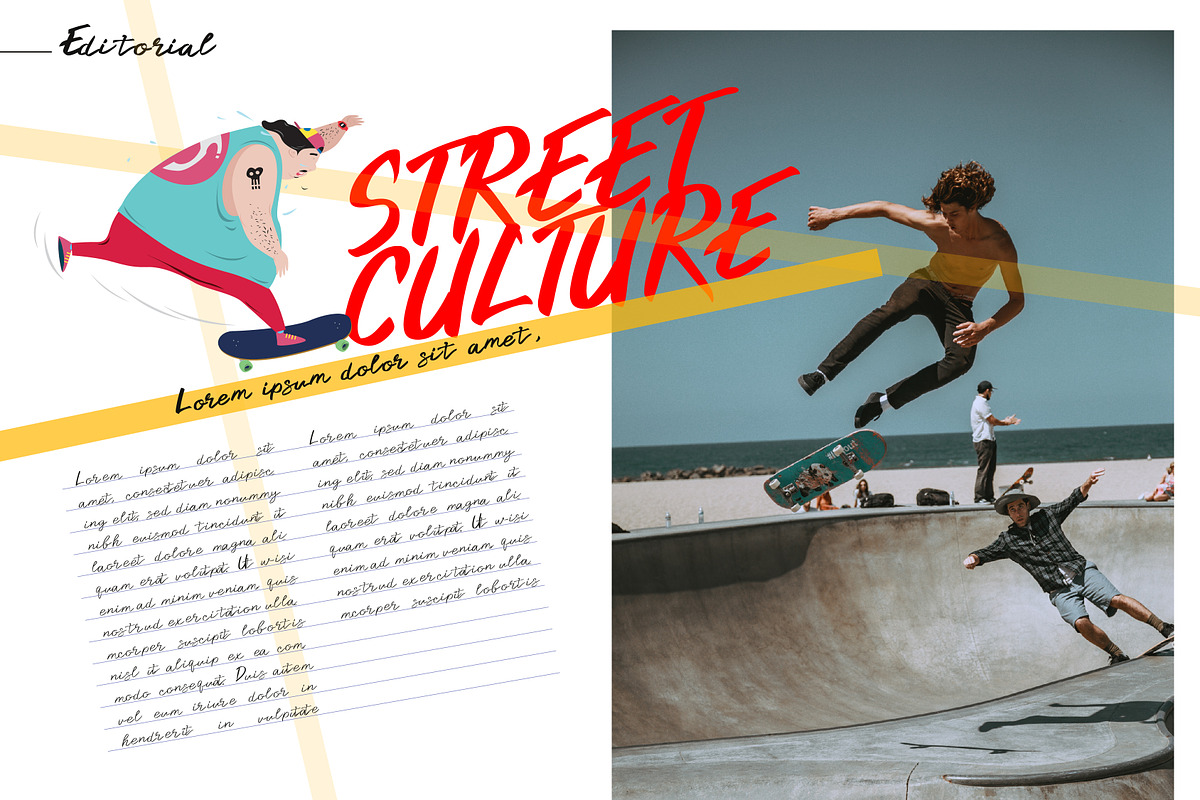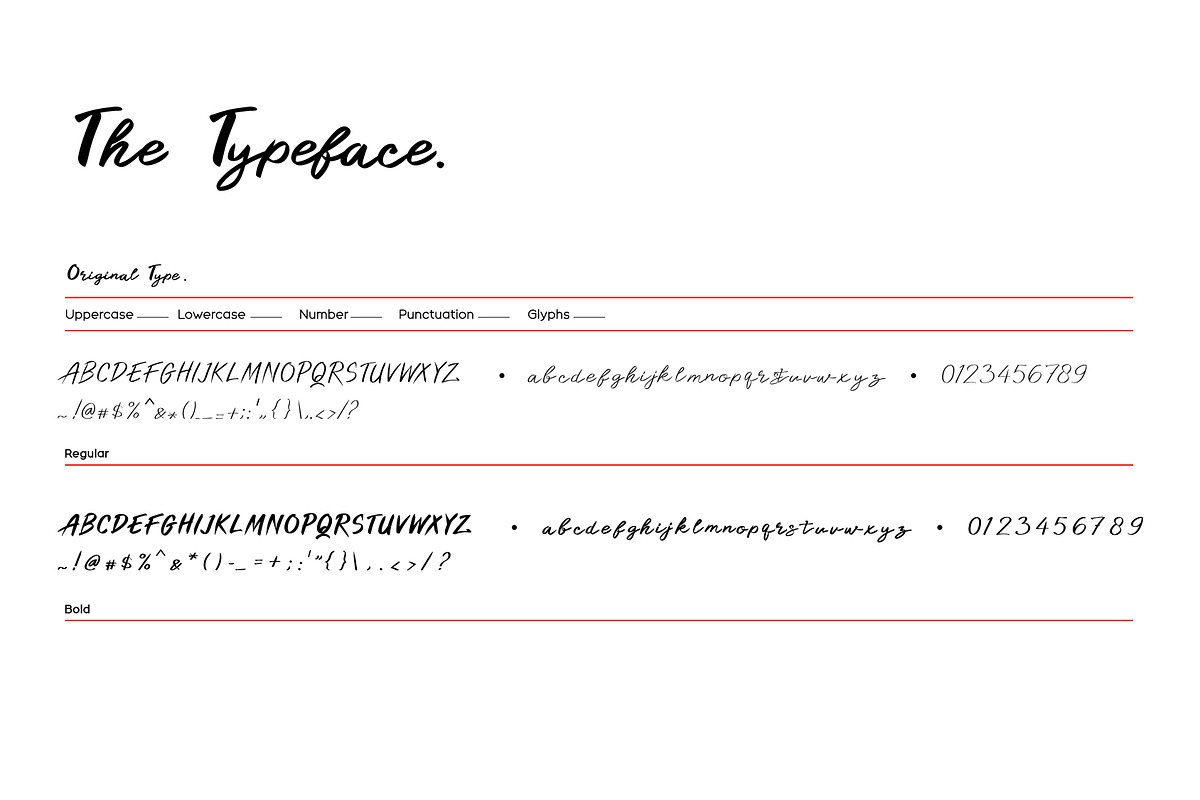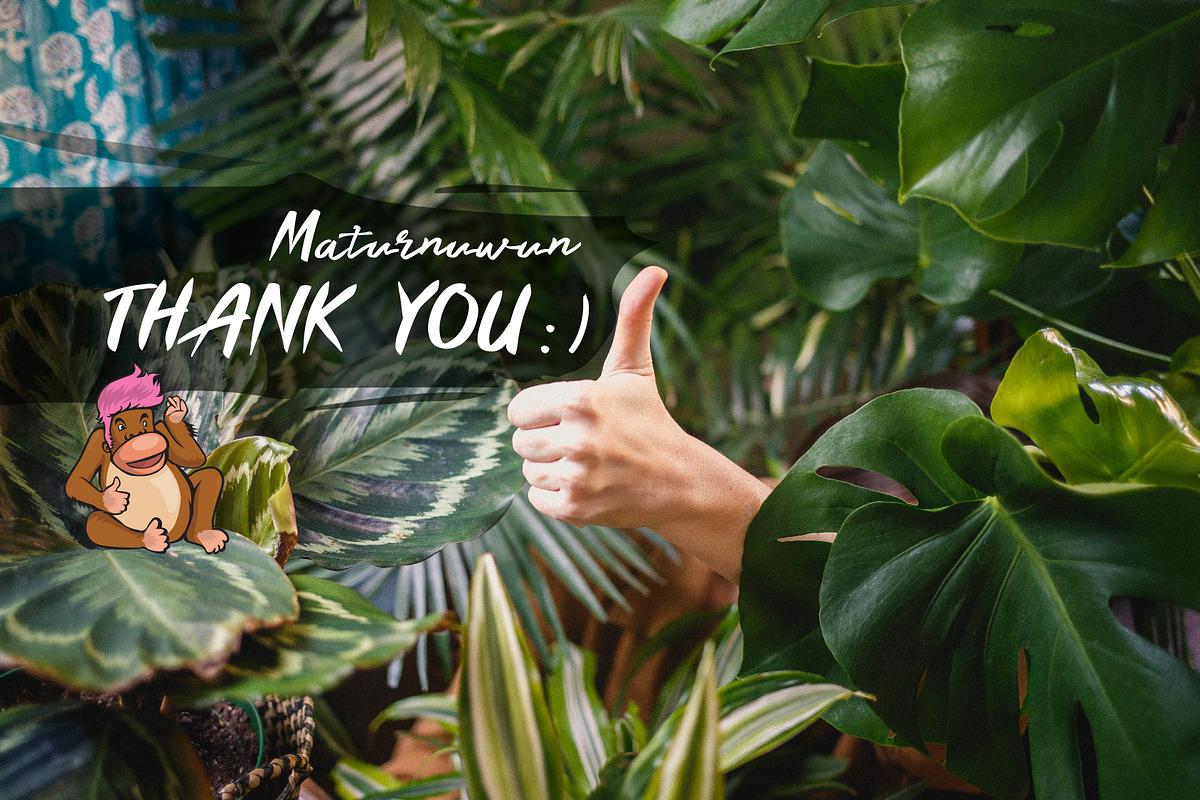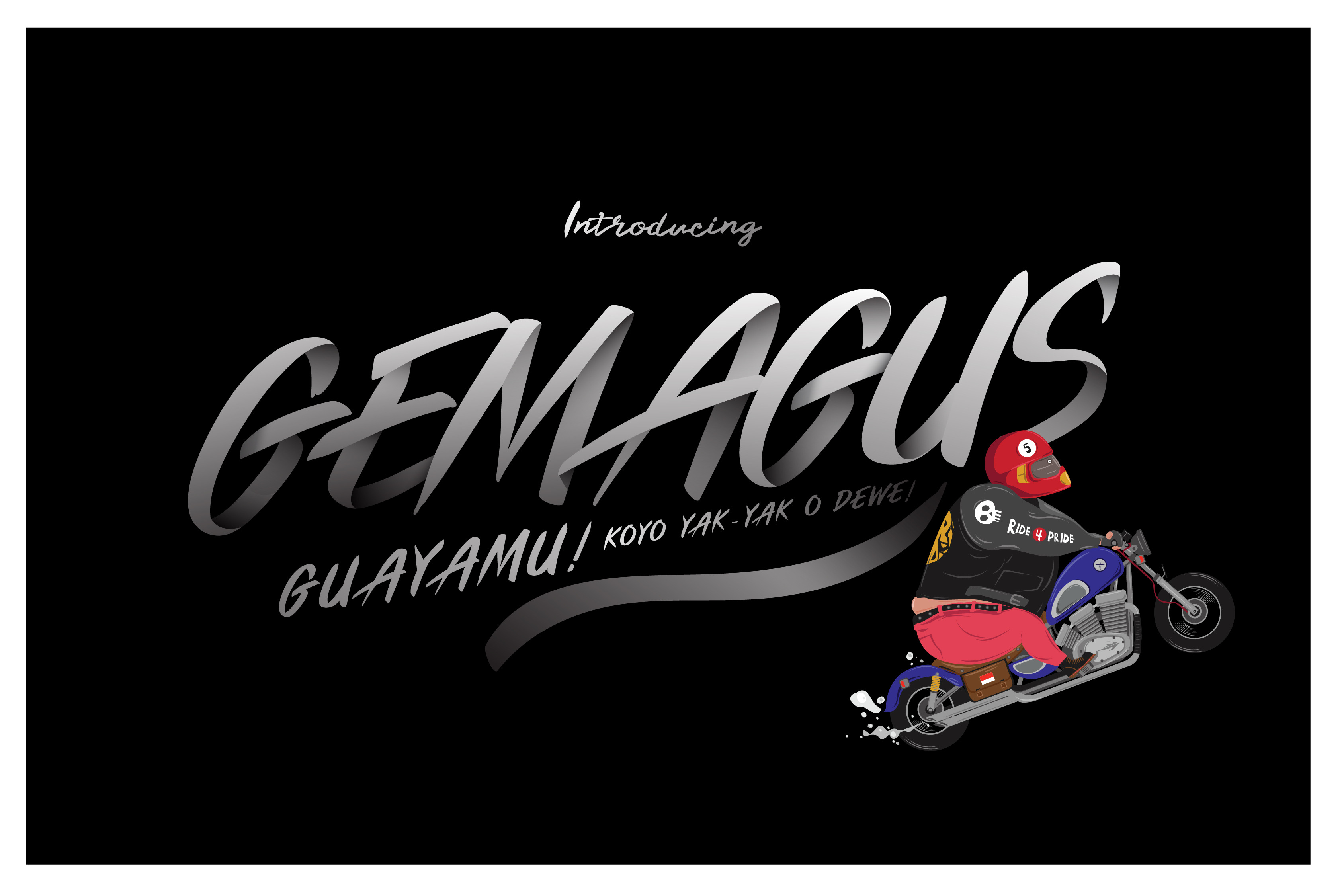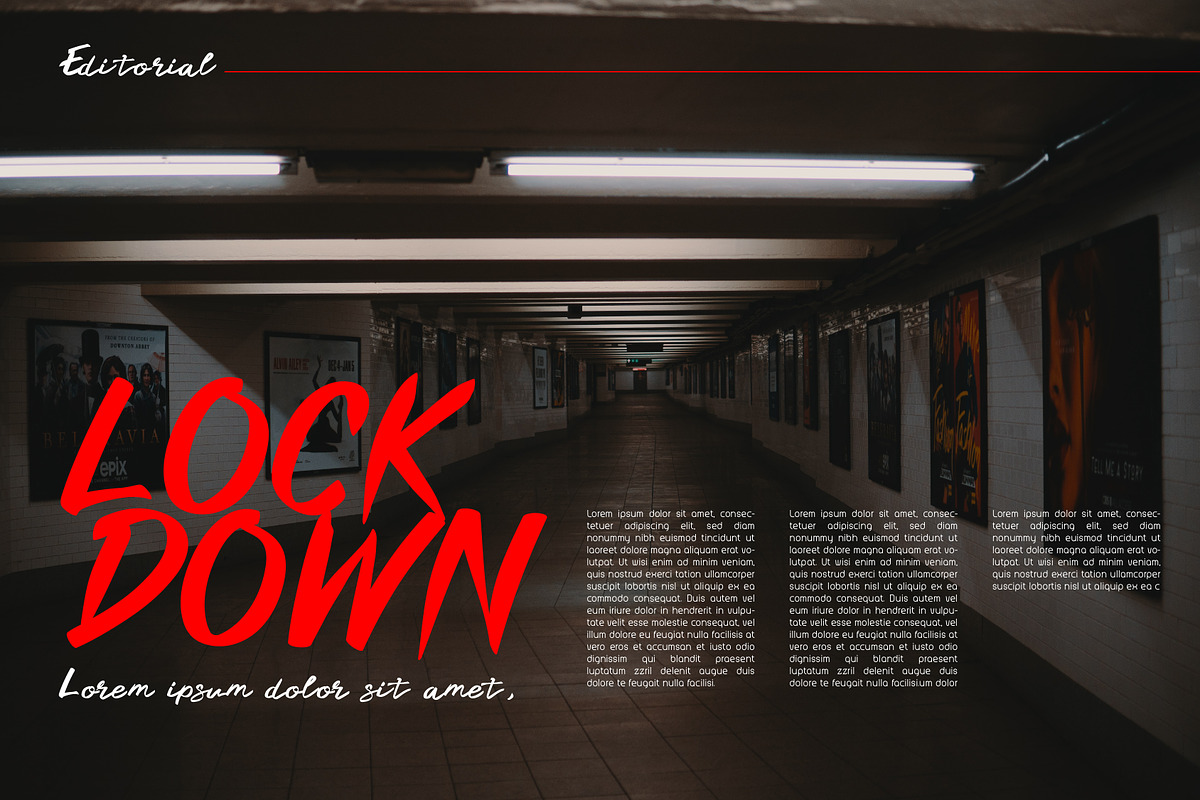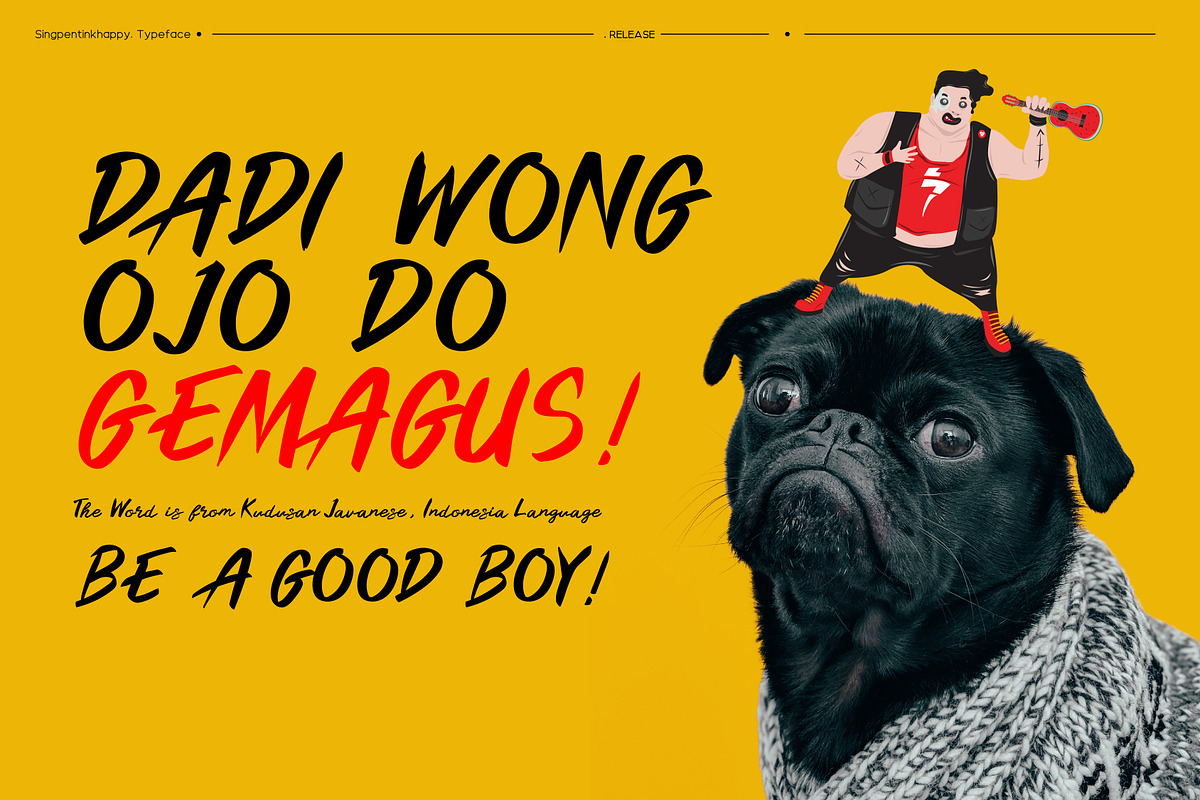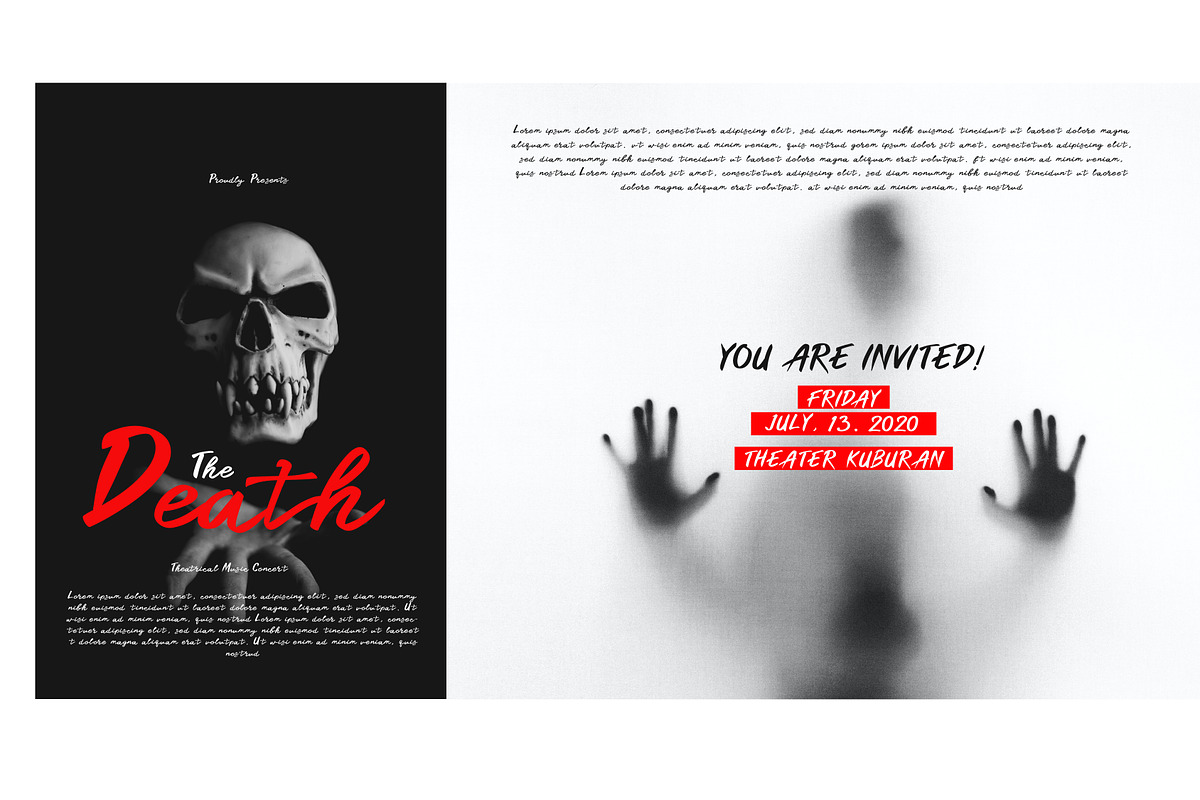
Gemagus Typeface
Gemagus is strong fun and humorous typeface
Gemagus is good for Poster, commercial, movies, editorial, fashion, culture, and travel. So for design and typography experiment, it’s very interesting. Thanks for checking out Gemagus.
Typeface
- Gemagus Regular for Bodytext
- Gemagus Bold for Title, Headline & Experiment
Numbers | Punctuation | Glyphs